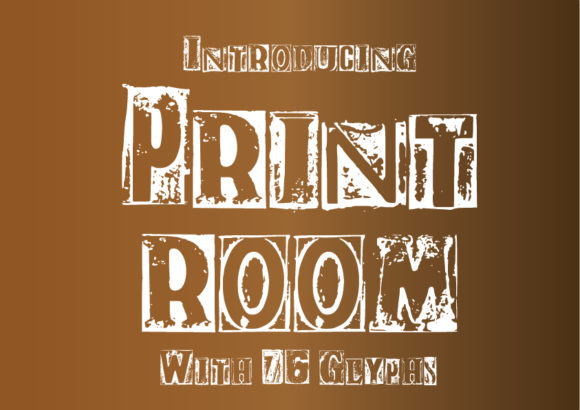
Step into the world of antique charm and timeless elegance with Print Room 1 & 2, a captivating duo of wood and metal fonts that breathes life into your creative endeavors. Crafted by the ingenious minds at GraphicsBam Fonts, these fonts are masterpieces that evoke the essence of yesteryears, adding a touch of nostalgia and sophistication to your designs.
Picture this: the warmth of a vintage printing room, with its worn wooden blocks and intricate metal type, the faint scent of ink lingering in the air. Print Room 1 & 2 captures the essence of this bygone era, transporting you back to a time of craftsmanship and artistry. With these fonts at your disposal, you can effortlessly infuse your designs with a sense of history and character.
Imagine the possibilities: create captivating t-shirts that speak of forgotten tales, mugs that carry the weight of memories, posters that echo the whispers of the past. The sturdy, rugged charm of Print Room 1 & 2 adds a tactile dimension to your designs, inviting viewers to reach out and touch the very essence of time.
This collection is more than just a set of fonts; it's a gateway to a world of creative exploration. With numbers, uppercase A-Z, and a treasure trove of symbols, Print Room 1 & 2 empowers you to weave intricate tales and express your individuality like never before. No longer will you struggle to find the perfect font combination or spend hours meticulously arranging letters; these fonts are ready to go, seamlessly blending together to create harmonious designs.
But don't stop there. Unleash your creativity and mix and match Print Room 1 & 2 with Print Room 2 to create an even more diverse and captivating tapestry of visual delights. Let the fonts dance together, each adding its unique flavor to your designs. The possibilities are endless, limited only by the boundaries of your imagination.
So, whether you're a seasoned designer seeking inspiration or a novice eager to make a mark, Print Room 1 & 2 is the ultimate companion, guiding you on a journey through time and creativity. Embrace the allure of the past and let these fonts ignite your imagination, transforming your designs into timeless masterpieces.